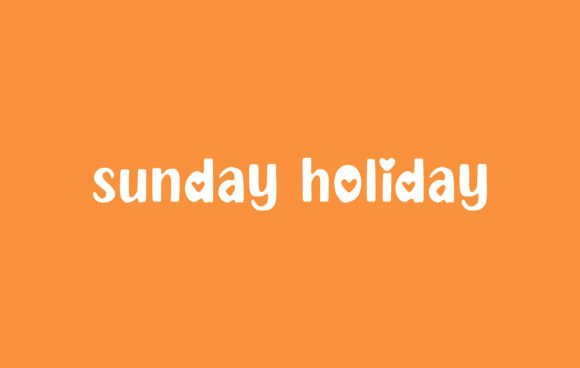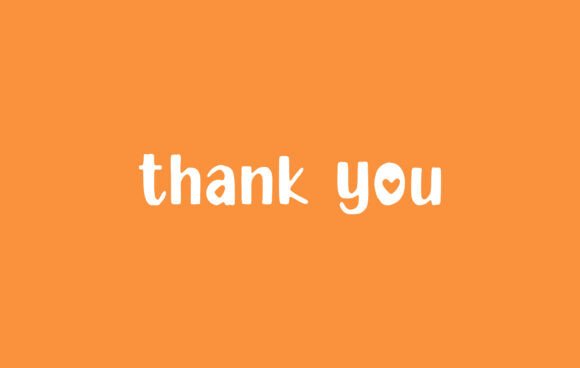
Introduction to Horizontwist Font
Have you ever found yourself staring at a blank page, struggling to find the perfect font to bring your creative project to life? For designers, this moment can be daunting, but what if you stumbled upon a font that effortlessly captured the essence of your vision? That’s where the Horizontwist Font comes in – a beautifully crafted, authentic handwritten font that exudes a romantic touch, making it an instant favorite among designers.
With its exceptional legibility and versatility, the Horizontwist Font is perfect for a wide range of designs, from magazine headlines to social media graphics, branding, and even wedding invitations. Whether you’re working on a high-quality design resource or simply need a reliable font for your next project, the Horizontwist Font is an excellent choice. And the best part? It’s available for a free download, complete with a transparent background, making it a valuable addition to any designer’s toolkit.
Key Features of Horizontwist Font
- High-quality design resource ideal for creative projects, offering a unique twist on traditional typography.
- Features a clean and modern design, suitable for a wide range of applications, from logos and branding to digital art and graphics.
- Designed to be highly legible, even at small font sizes, making it perfect for use in body text, headings, and other typography-heavy elements.
Honest Review: Horizontwist Font
I recently had the opportunity to work with the Horizontwist Font in a creative project and I must say, it was a great experience. As a designer, I’m always on the lookout for high-quality fonts that can elevate my designs. And Horizontwist Font definitely delivers.
- Unique and stylish design: The Horizontwist Font has a distinct, modern feel that can add a touch of sophistication to any design.
- Limited font weights: The Horizontwist Font only comes in a few font weights, which may not be ideal for designs that require a wide range of weights.
- Not suitable for small text: The font can be a bit too bold and striking for small text, making it less ideal for body text.
Overall, I’m impressed with the Horizontwist Font and would definitely recommend it to designers looking for a high-quality, modern font for their creative projects. While it may have some limitations, its unique design and free download make it a valuable resource for designers of all levels.
The Horizontwist Font is commonly used for headings, titles, and labels in creative projects such as branding, marketing materials, and digital products. Its unique design makes it an ideal choice for designers who want to create a high-quality and modern look.